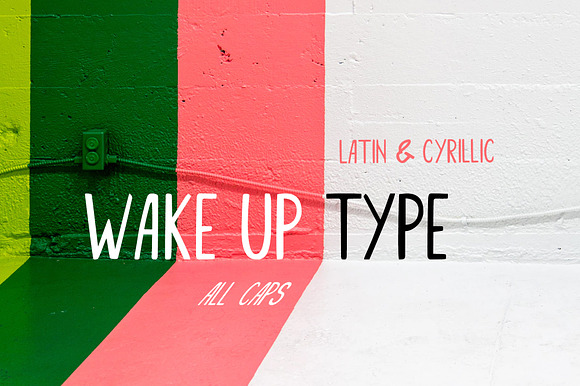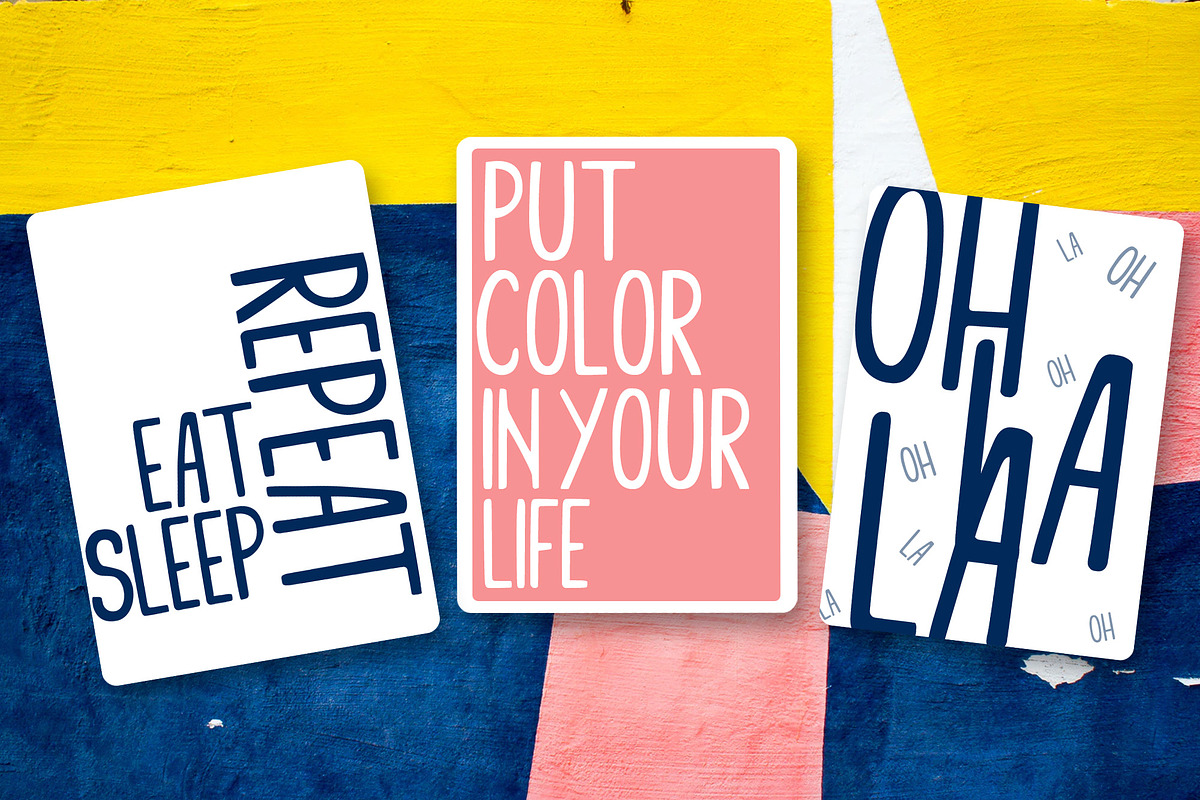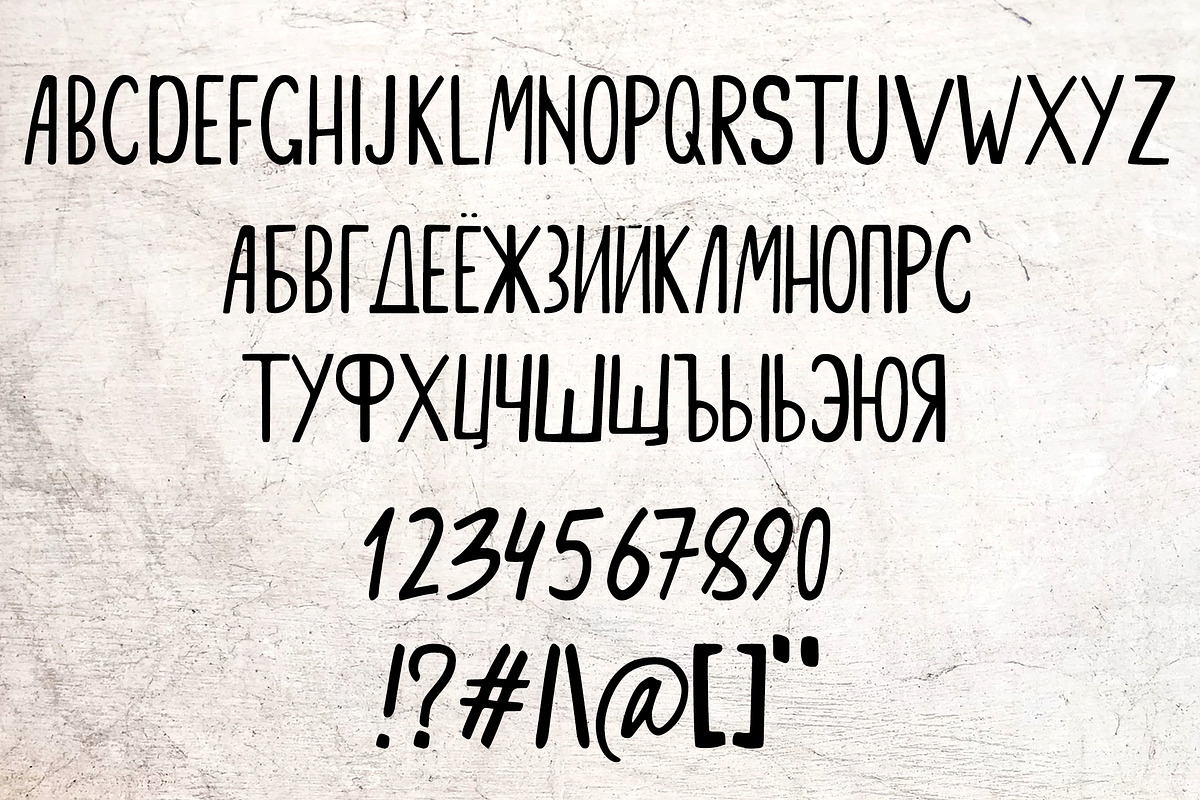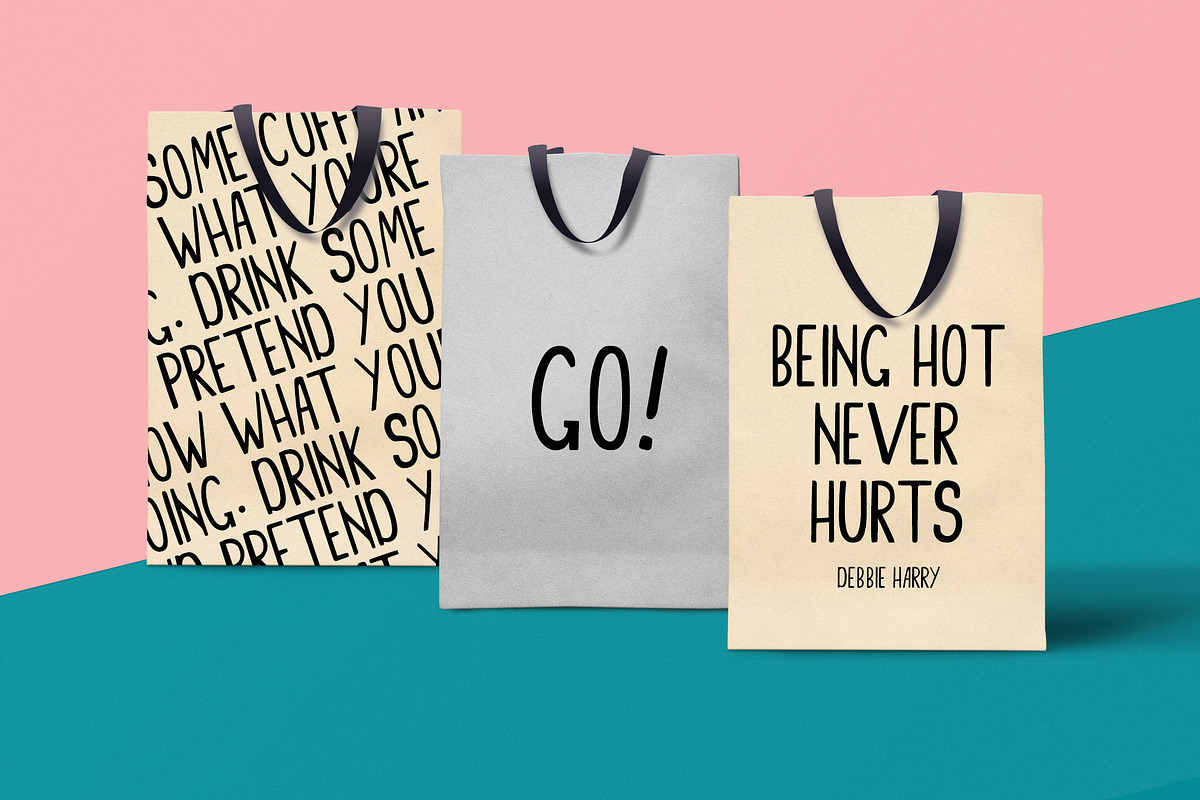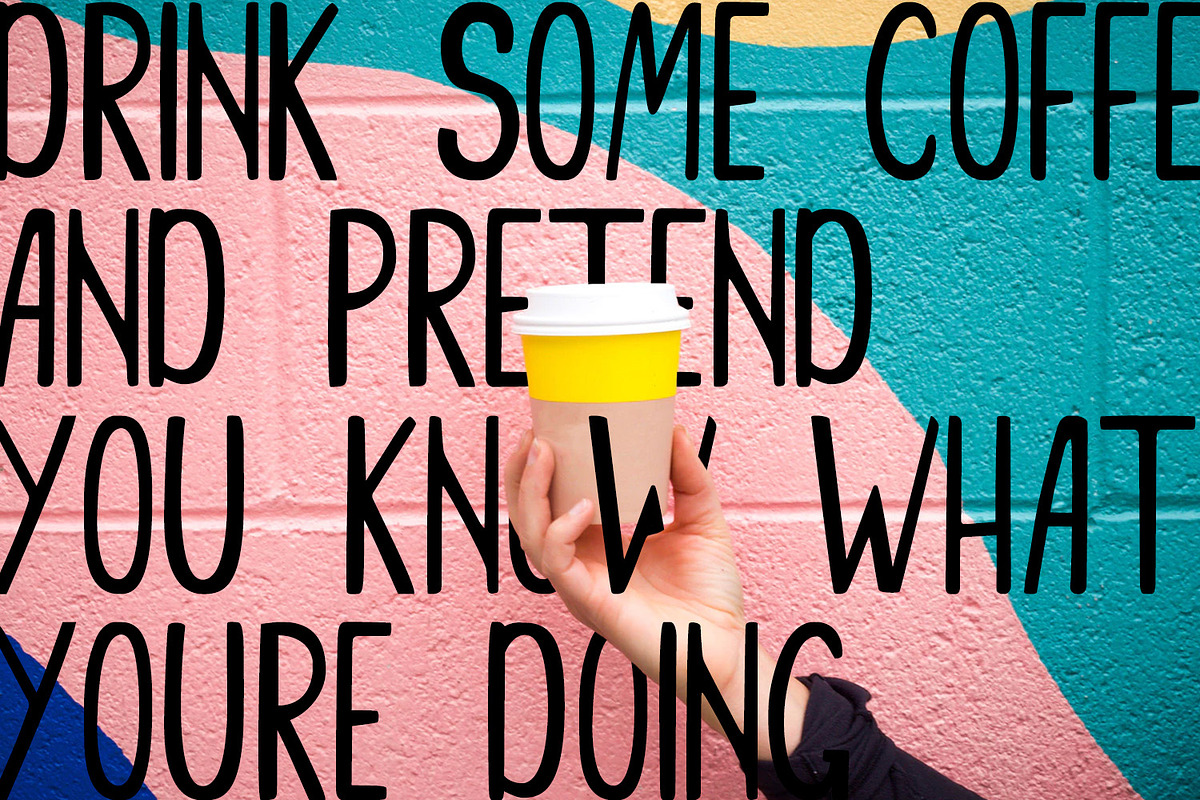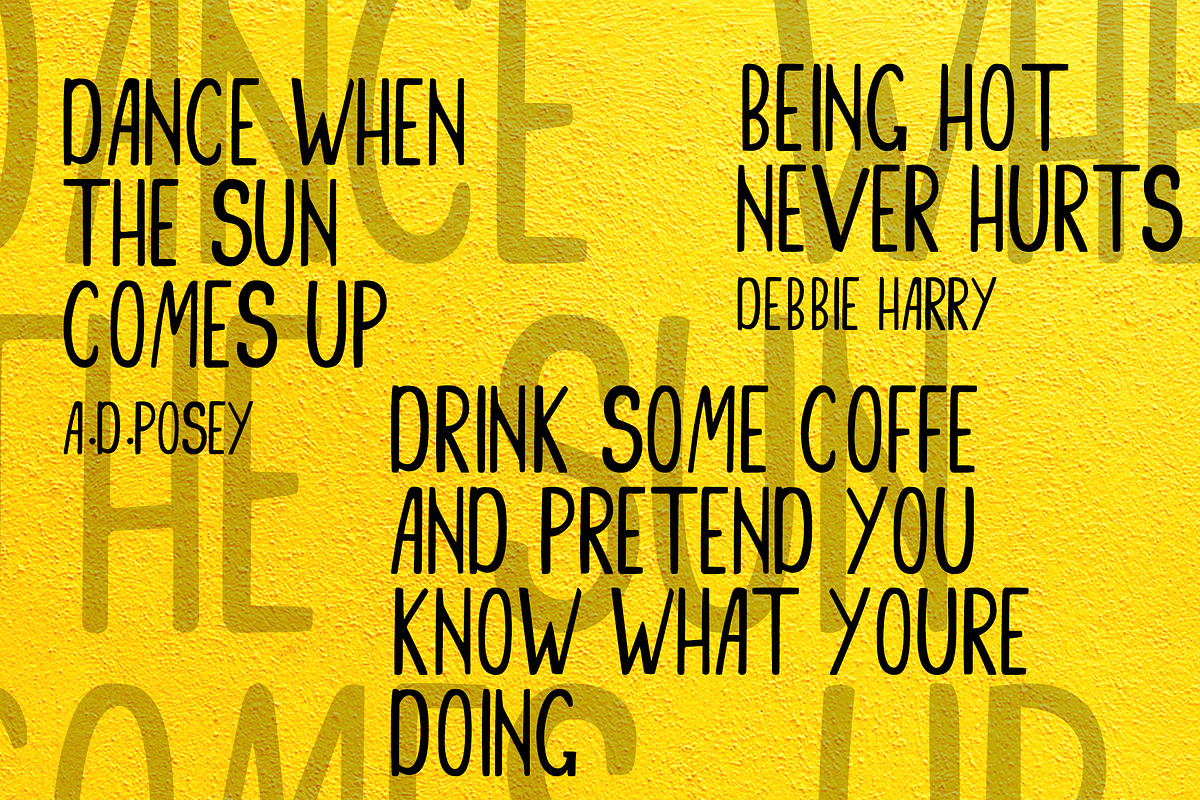
Wakeup font
Introducing hand made Wakeup font. This is my very first font. So please let me know what do you think about it or if you have any issues or queries.
Wakeup is hand written, all caps font and will look good on posters, apparel, postcards and any more.
- Font available in OTF format and includes latin and cyrillic characters, numbers and some symbols.